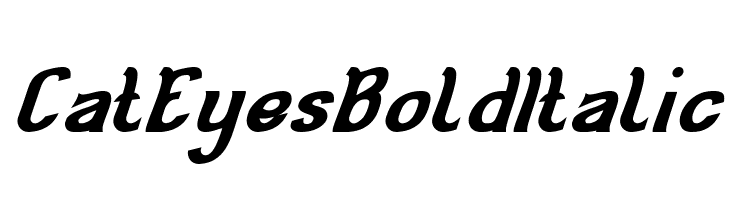
A bold, italicized font with dynamic and playful letterforms.
A dynamic italic font with smooth, rounded strokes and a playful elegance.
A playful, handwritten-style font with bold, slightly italicized characters.
A bold, italicized cartoon-style font with playful curves and dynamic energy.
A bold, italicized font with a playful, cartoonish style.